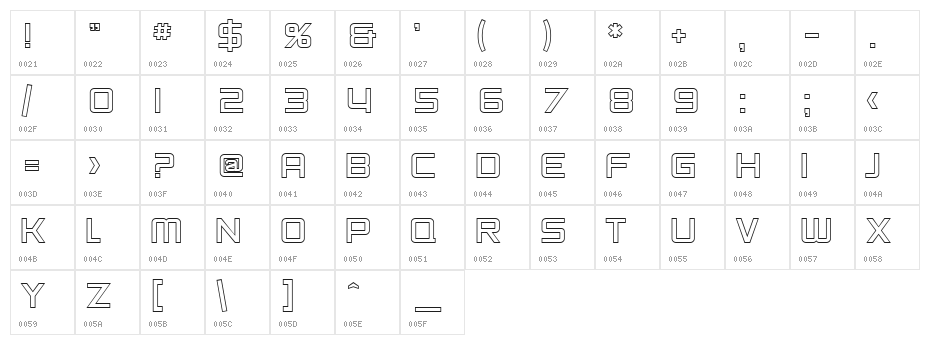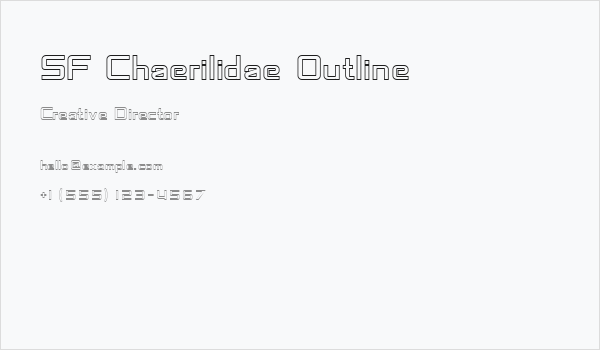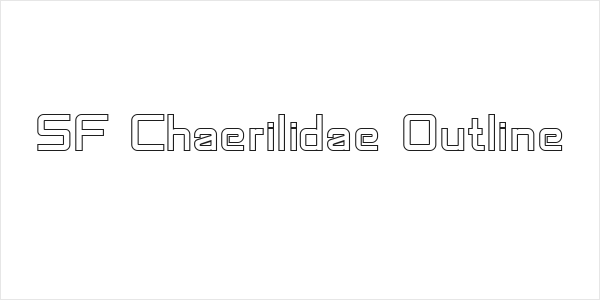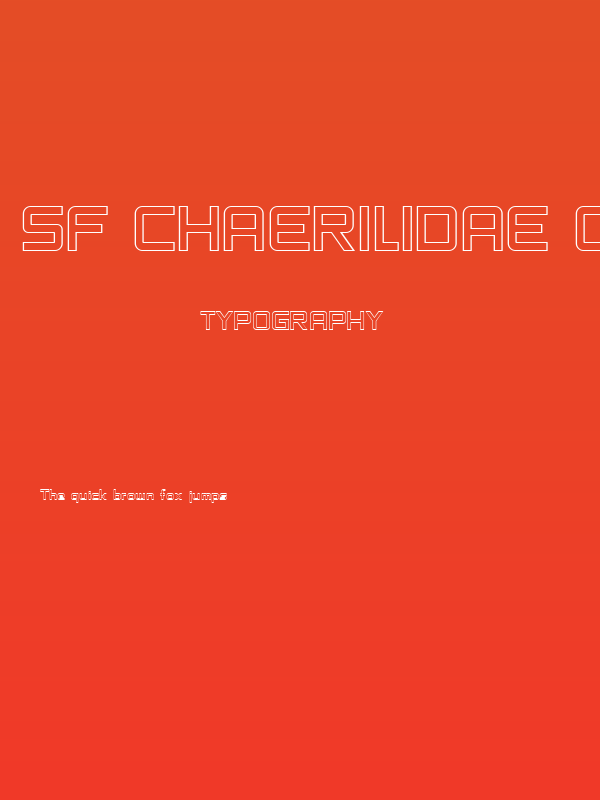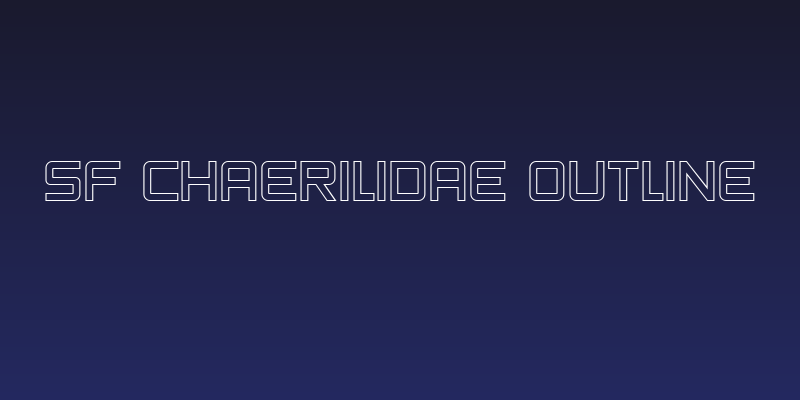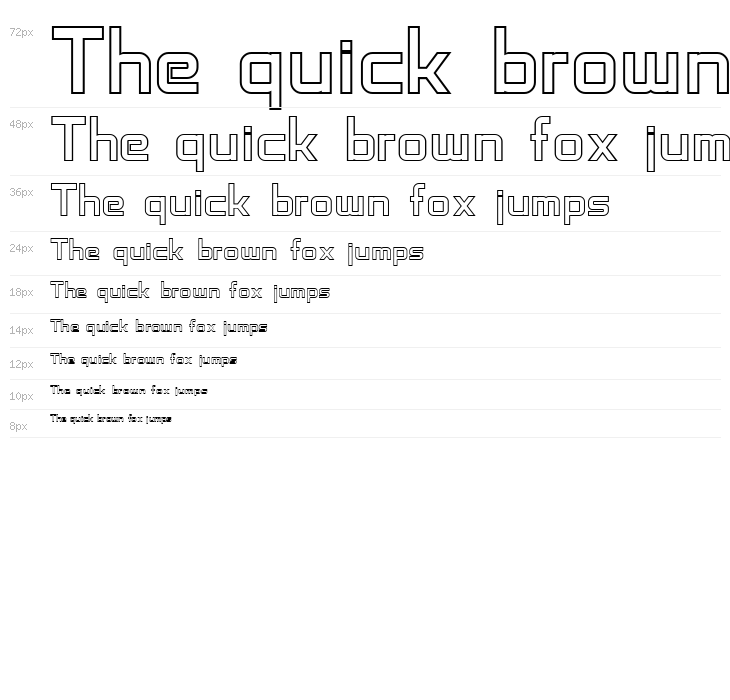
SF Chaerilidae Outline Font
SF Chaerilidae Outline Description
This font features a modern, geometric outline style with clean, precise lines. Each character is crafted with a consistent stroke width, creating a uniform and structured appearance. The uppercase and lowercase letters maintain a balanced proportion, while the numerals and special characters complement the overall design. The font's open and airy structure makes it ideal for projects that require a contemporary and minimalist aesthetic. Its distinct outline form adds a unique touch, making it suitable for creative and artistic applications.
| Proposed Projects | Ideal for branding, posters, headlines, and digital artwork where a modern and creative look is desired. |